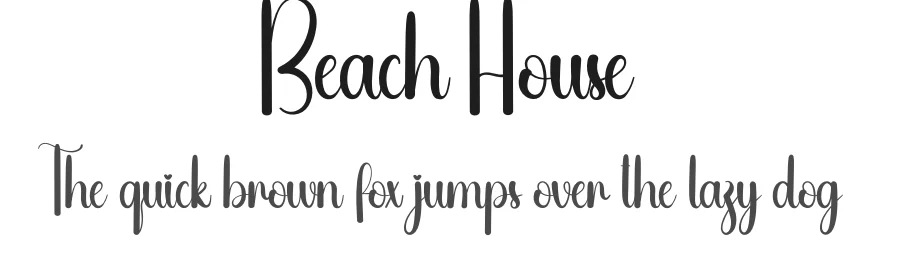
About Eagle Font
Eagle Specifications
| Font Family | Eagle |
| Full Name | Eagle |
| PostScript Name | EagleRegular |
Eagle supports 197 languages.
Eagle Font is a script font that shines as a display or heading face. Pair it with a clean sans-serif or serif font for body text β the contrast creates a clear hierarchy while the two styles stay balanced and easy to read.